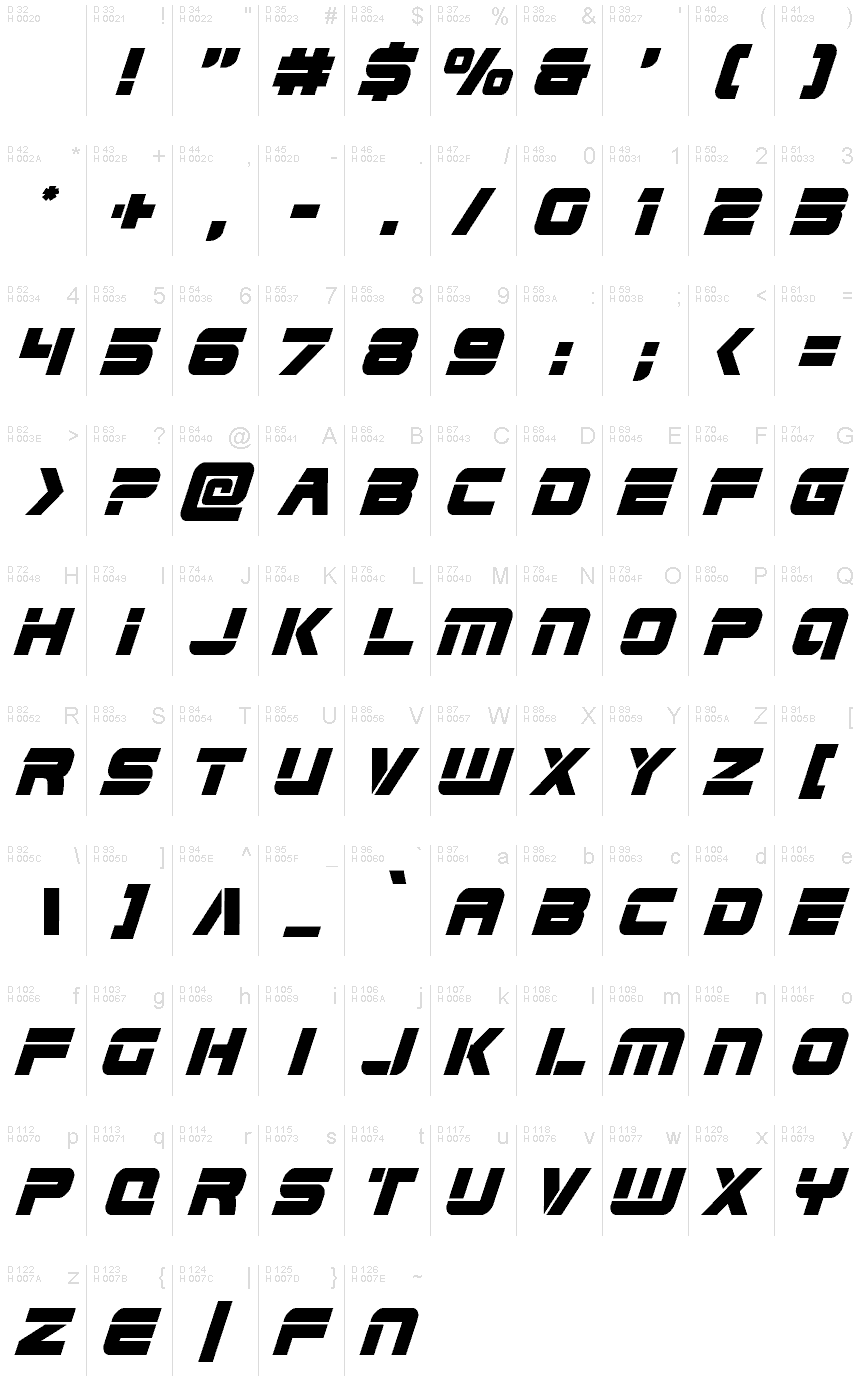
Edge Racer Super-Italic
Edge Racer Super-Italic font by Iconian Fonts is a futuristic display typeface that seamlessly melds angular and geometric elements into an expanded design. Reminiscent of technological advancement, its streamlined and modern appearance exudes an aggressive flair, perfect for engaging visual projects. Each character flows into the next with precision, making it not only a functional font but a piece of visual art.